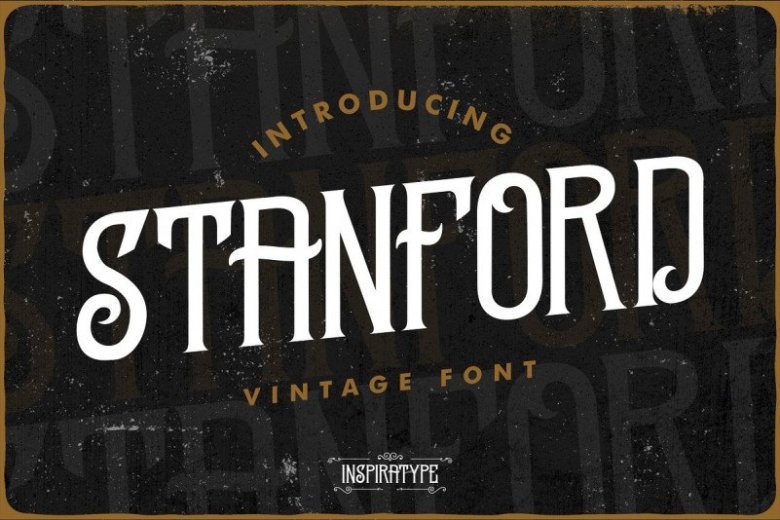
Standford Vintage Font
Say hello to Standford Font. It’s made in strong and dynamic label style. It is designed and shared by Inspiratype. “Standford Vintage Font” is a font display that is made by hand, inspired by classic posters. Comes with uppercase, lowercase, numerals, punctuations and so many variations on each character include OpenType alternates, common ligatures and also additional swash to let you customize your designs. Perfect to use for Logotype, Letterhead, Poster, Apparel Design, Label and etc.